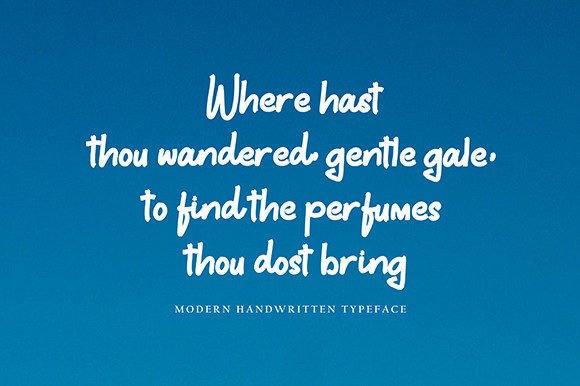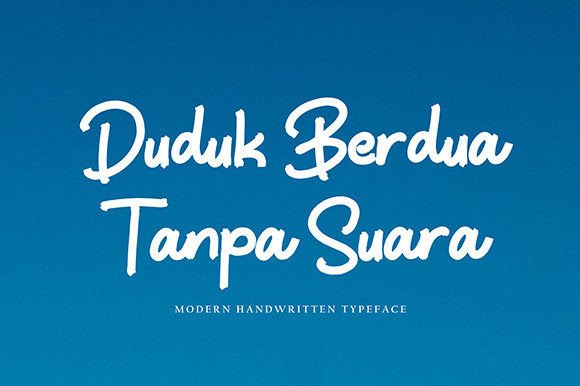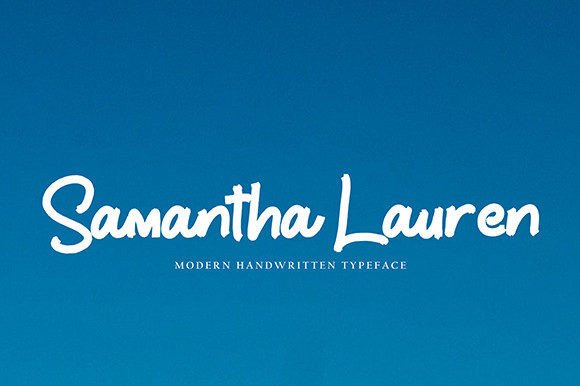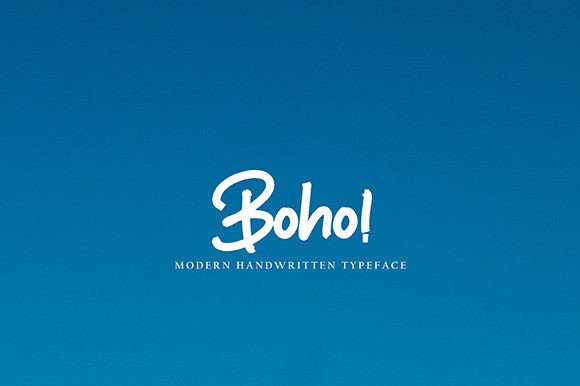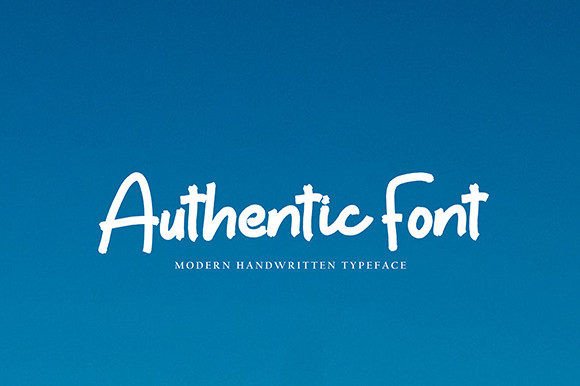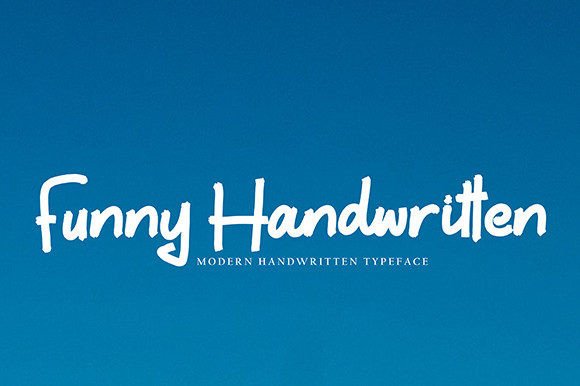
The Danitte Font: A Bold and Modern Handwritten Marvel
I still remember the design struggle that led me to discover the Danitte font. I was working on a project for a client who needed a bold and modern handwritten font for their branding. I had spent hours scouring the internet for the perfect font, but nothing seemed quite right. That was until I stumbled upon Danitte. Its unique blend of boldness and elegance immediately caught my eye, and I knew I had found the one.
An Honest Review of Danitte
What I Love About Danitte ✨
- 💥 **Bold and eye-catching**: Danitte is perfect for making a statement with your designs.
- ✅ **Modern and fresh**: Its unique style ensures your designs won’t look outdated.
- 📝 **Versatile**: Suitable for a wide range of projects, from quotes and logos to blog headers and posters.
- 👍 **Easy to read**: Despite its boldness, Danitte remains clear and legible.
- ⚠️ **Limited formal tone**: Danitte’s bold and modern style might not be suitable for more formal projects.
- 🤔 **Overuse can be overwhelming**: Use Danitte sparingly to avoid overwhelming your designs.
- Experiment with **OpenType features** like ligatures and stylistic alternates to add more flair to your text.
The Backstory of Danitte
Danitte was designed with the intention of creating a font that embodies both boldness and elegance. The designer aimed to craft a modern handwritten font that could be used across various platforms and projects, from casual invitations to professional branding. The result is a versatile and eye-catching font that has captured the hearts of many designers.
Q: What makes Danitte unique?
A: Danitte’s uniqueness lies in its perfect blend of boldness and elegance, making it suitable for a wide range of design projects.
Q: Is Danitte suitable for body text?
A: While Danitte is primarily designed for headlines and titles, it can be used for short paragraphs of body text. However, for longer texts, a more readable font might be preferable.
Q: Does Danitte support OpenType features?
A: Yes, Danitte supports OpenType features, including ligatures and stylistic alternates, which can enhance your designs.